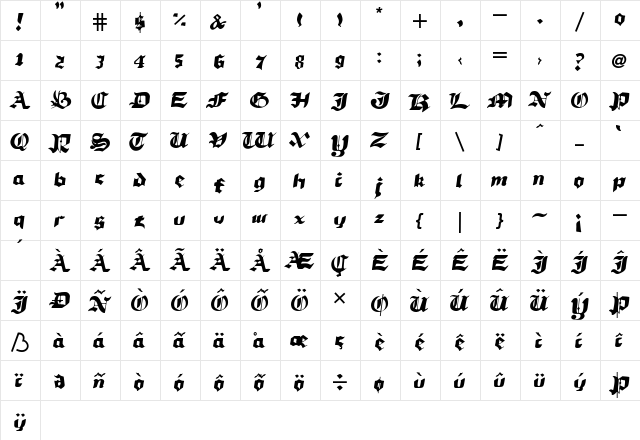
Blood Regular
Design Context for Blood Typeface
Blood leans into the macabre with letterforms designed to disturb and intrigue in equal measure.
Perfect for anything that needs to unsettle — game titles, horror branding, and macabre invitations.
Font Pairing: Pair with a clean neutral sans-serif for body copy to let Blood's character lead without overwhelming the composition.
Pro Tip: Use Blood at larger display sizes for maximum impact. Consider generous tracking to let the disturbing character of each letterform breathe.